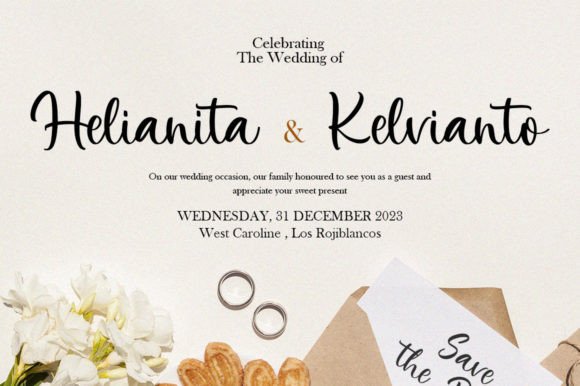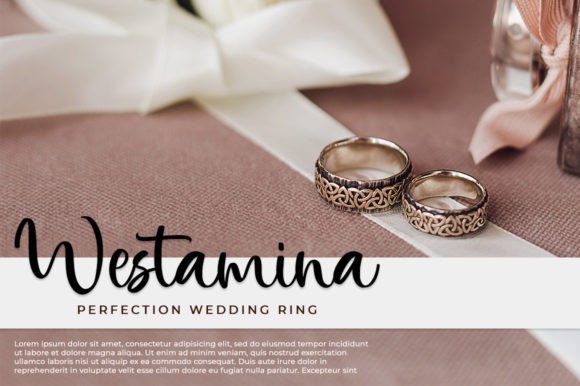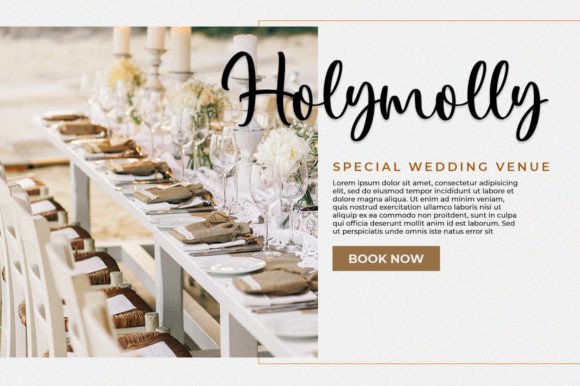
Introduction to Onelighten Font
Introducing Onelighten a stylish script font.
This beautiful script font offers your personal touch to your latest art project with an elegant, classy, and modern look Onelighten offers gorgeous typographic perfect for many different projects such as logos & branding, invitations, stationery, wedding designs, social media posts, special events, or anything that needs handwriting taste.
Key Features of Onelighten Font
Why Choose Onelighten Font?
Onelighten Font offers exceptional quality and versatility, making it a valuable addition to your design toolkit. Whether you’re creating for personal projects or commercial use, Onelighten Font delivers professional results.